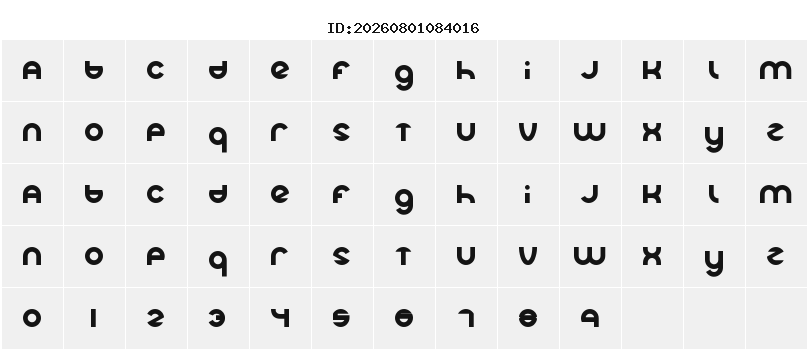
About LMAO!.ttf
LMAO!.ttf is a modern, elegant sans-serif font designed for ultimate readability and visual harmony. Perfect for branding, headlines, web design, and print materials.